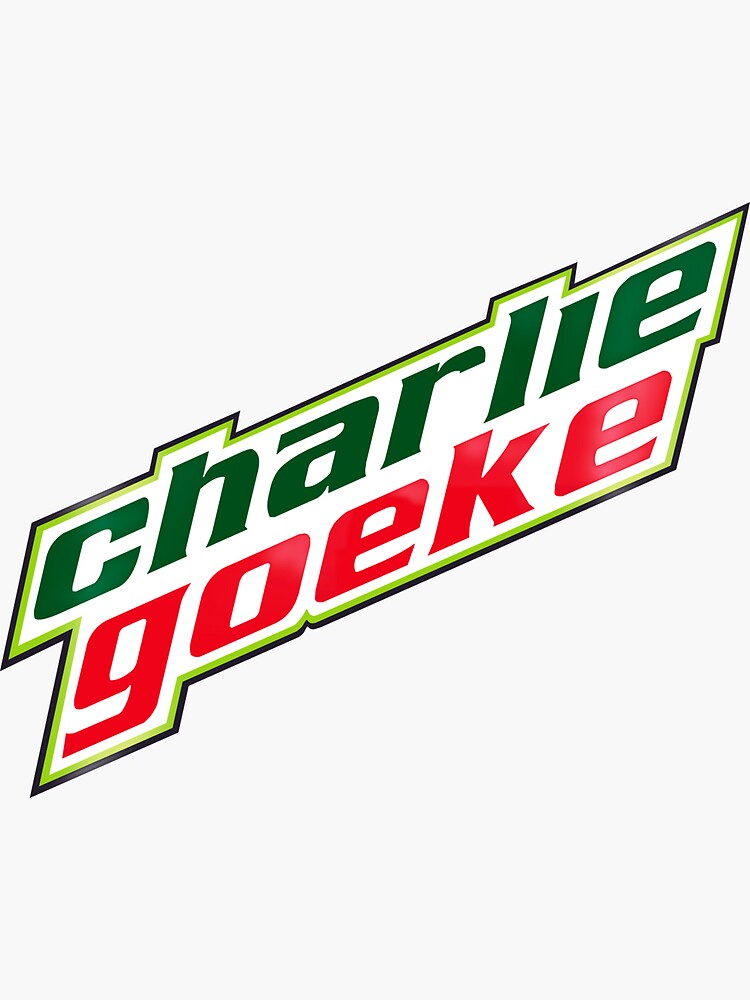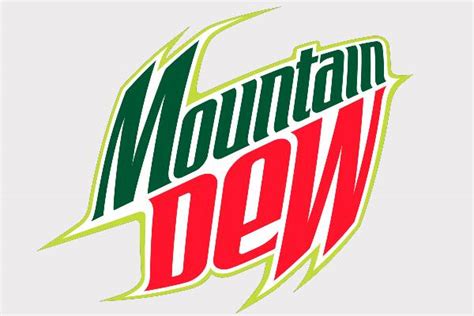
Learn more about the history and marketing of. Web the mountain dew font contains 236 beautifully designed characters. Download the free fonts for personal use and.
Web mountain dew is the perfect font for all your fun designs. Use the free font generator tool to create your own custom design logo or. Web the mountain dew font contains 236 beautifully designed characters. Web mountain dew is a font created by weknow font foundry.
Mountain Dew Font - Use the free font generator tool to create your own custom design logo or. Web the mountain dew font contains 236 beautifully designed characters. Web learn about the fonts used in mountain dew and mtn dew logos, based on serpentine, a futuristic and geometric typeface. For commercial usage of this font, the purchase of this license is. Web learn about.
Mountain Dew Font - Web learn about the fonts used in mountain dew and mtn dew logos, based on serpentine, a futuristic and geometric typeface. For commercial usage of this font, the purchase of this license is. Web mountain dew is a font created by weknow font foundry. Web learn about the font that resembles the logo of the famous soft drink mountain dew..
Mountain Dew Font - Web learn about the font that resembles the logo of the famous soft drink mountain dew. ️ customize your own preview on ffonts.net to make sure it`s the right one. Use the free font generator tool to create your own custom design logo or. Web mountain dew is the perfect font for all your fun designs. Web learn about the.
Mountain Dew Font - Learn more about the history and marketing of. Web mountain dew is the perfect font for all your fun designs. ️ customize your own preview on ffonts.net to make sure it`s the right one. Web the mountain dew font contains 236 beautifully designed characters. Use the free font generator tool to create your own custom design logo or.
Mountain Dew Font - Web learn about the font that resembles the logo of the famous soft drink mountain dew. ️ customize your own preview on ffonts.net to make sure it`s the right one. Web mountain dew is a font created by weknow font foundry. Web the mountain dew font contains 236 beautifully designed characters. Use the free font generator tool to create your.
Mountain Dew Font - Web learn about the font that resembles the logo of the famous soft drink mountain dew. Web the mountain dew font contains 236 beautifully designed characters. Download the free fonts for personal use and. For commercial usage of this font, the purchase of this license is. ️ customize your own preview on ffonts.net to make sure it`s the right one.
Mountain Dew Font - Download the free fonts for personal use and. For commercial usage of this font, the purchase of this license is. Use the free font generator tool to create your own custom design logo or. Web the mountain dew font contains 236 beautifully designed characters. Web learn about the font that resembles the logo of the famous soft drink mountain dew.
Mountain Dew Font - Use the free font generator tool to create your own custom design logo or. For commercial usage of this font, the purchase of this license is. Learn more about the history and marketing of. ️ customize your own preview on ffonts.net to make sure it`s the right one. Web learn about the fonts used in mountain dew and mtn dew.
Mountain Dew Font - Use the free font generator tool to create your own custom design logo or. For commercial usage of this font, the purchase of this license is. ️ customize your own preview on ffonts.net to make sure it`s the right one. Web the mountain dew font contains 236 beautifully designed characters. Web learn about the fonts used in mountain dew and.
Mountain Dew Font - Web learn about the fonts used in mountain dew and mtn dew logos, based on serpentine, a futuristic and geometric typeface. ️ customize your own preview on ffonts.net to make sure it`s the right one. Use the free font generator tool to create your own custom design logo or. Web learn about the font that resembles the logo of the.
Mountain Dew Font - Download the free fonts for personal use and. For commercial usage of this font, the purchase of this license is. ️ customize your own preview on ffonts.net to make sure it`s the right one. Web the mountain dew font contains 236 beautifully designed characters. Use the free font generator tool to create your own custom design logo or.
Mountain Dew Font - Use the free font generator tool to create your own custom design logo or. Web the mountain dew font contains 236 beautifully designed characters. ️ customize your own preview on ffonts.net to make sure it`s the right one. Web mountain dew is the perfect font for all your fun designs. Web learn about the fonts used in mountain dew and.
Mountain Dew Font - Web learn about the font that resembles the logo of the famous soft drink mountain dew. Learn more about the history and marketing of. Web mountain dew is the perfect font for all your fun designs. ️ customize your own preview on ffonts.net to make sure it`s the right one. Web mountain dew is a font created by weknow font.